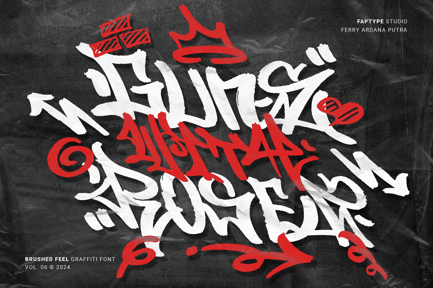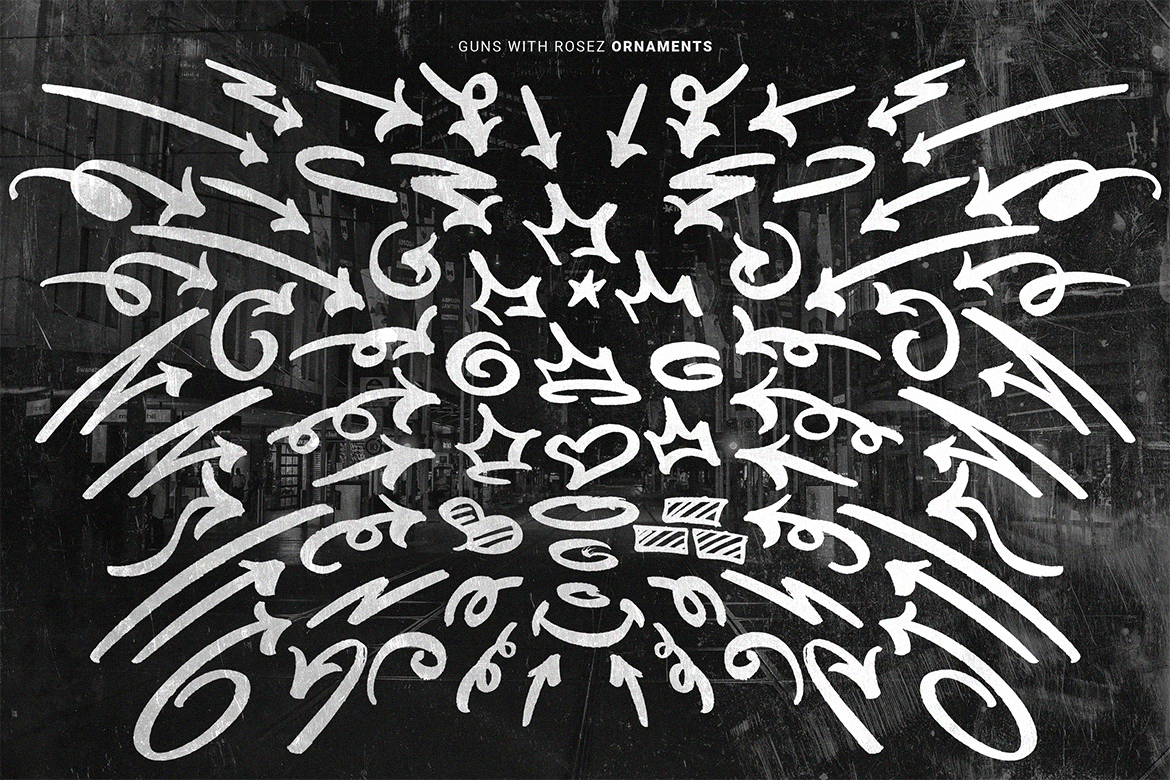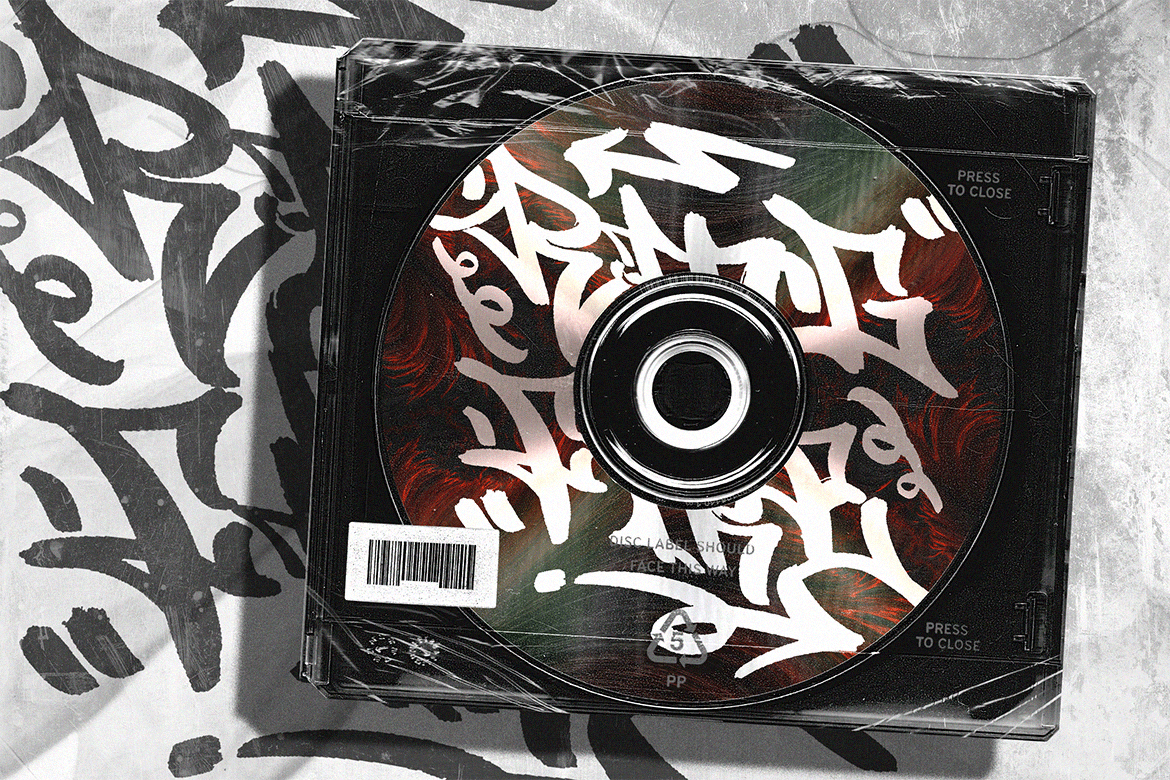
Guns With Rosez | Brushed Style Graffiti font
Versatile Applications:
* Album Covers
* Streetwear Apparel
* Graffiti Art Exhibitions
* Hip-Hop Posters and Flyers
* Skateboard Deck Graphics
* Street Art Murals
* Digital Marketing for Urban Brands
* Tattoo Designs
* Event Branding for Underground Shows
* Urban-themed Video Games
* Graffiti-inspired Branding
* Youth-Centric Social Media Graphics